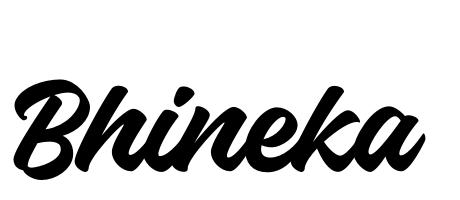
Bhineka
Bhineka is a flowing, cursive script font. Its letters are elegantly connected, exhibiting a gentle slope and a slightly playful bounce. The strokes are bold and consistent, creating a sense of both sophistication and approachability. It feels modern yet retains a timeless charm. The overall style is relaxed yet refined.